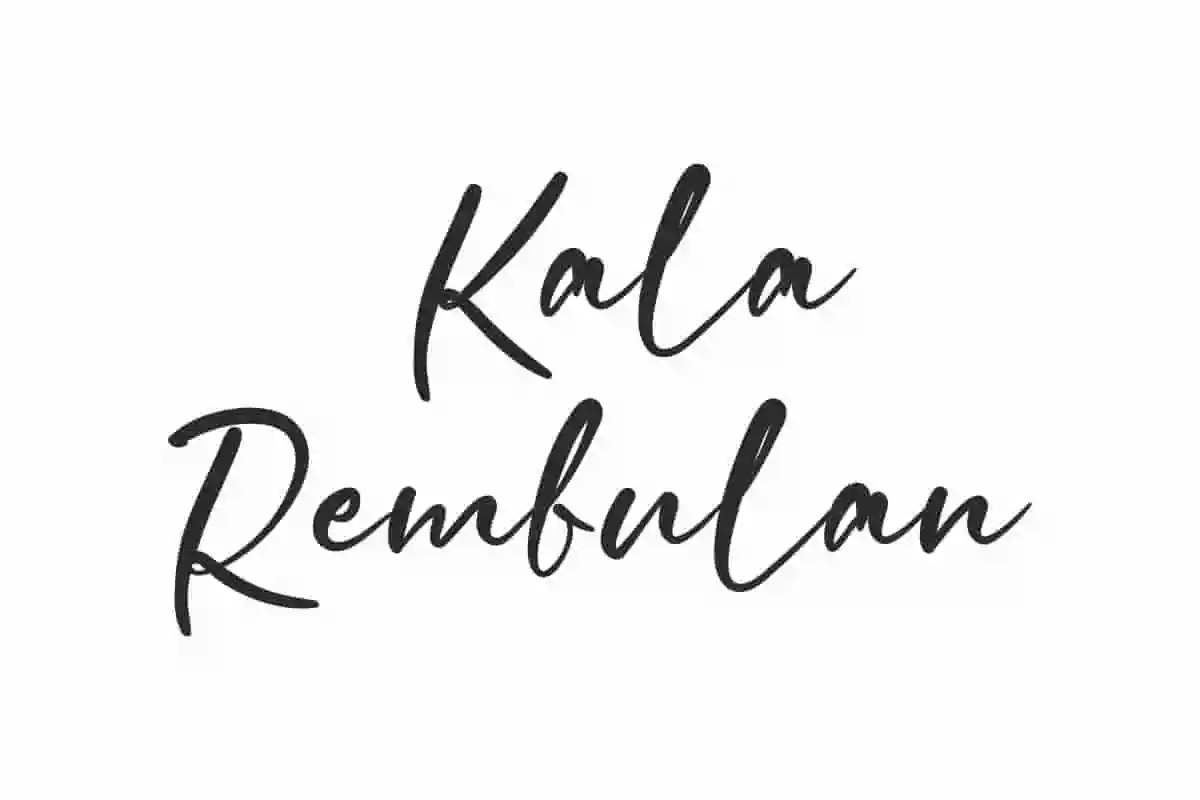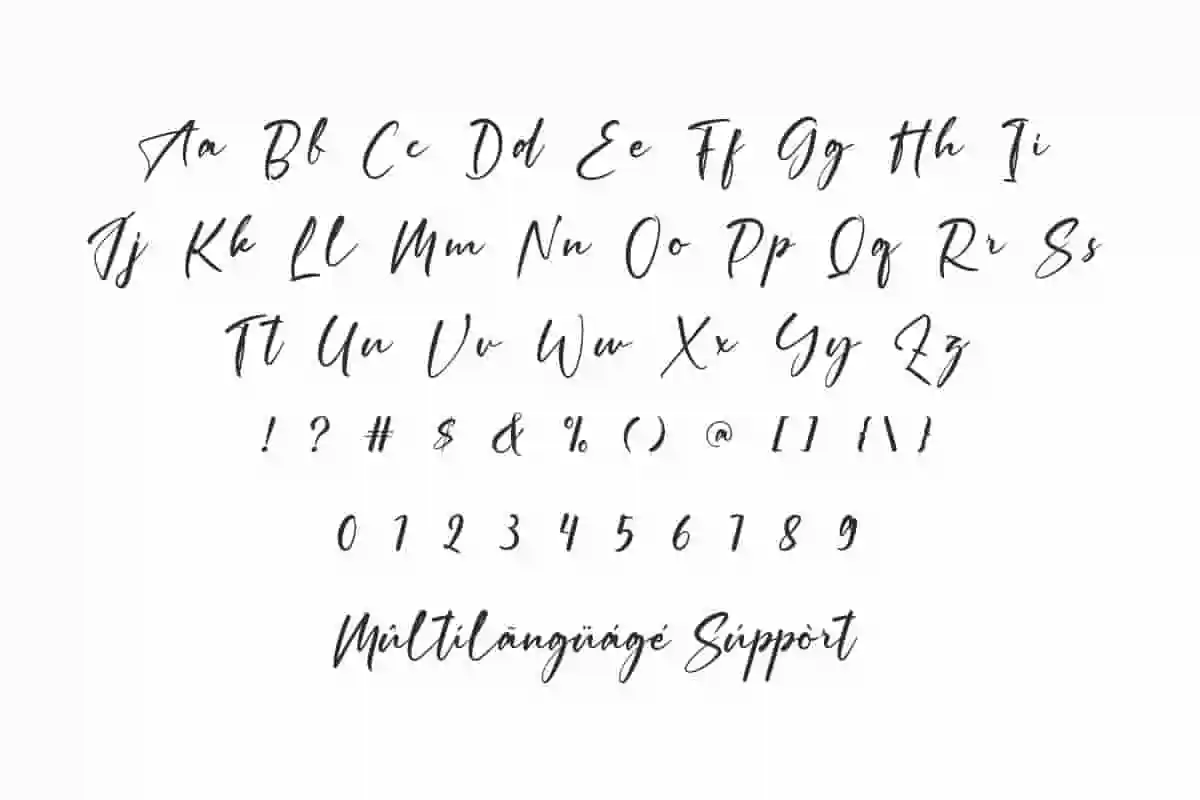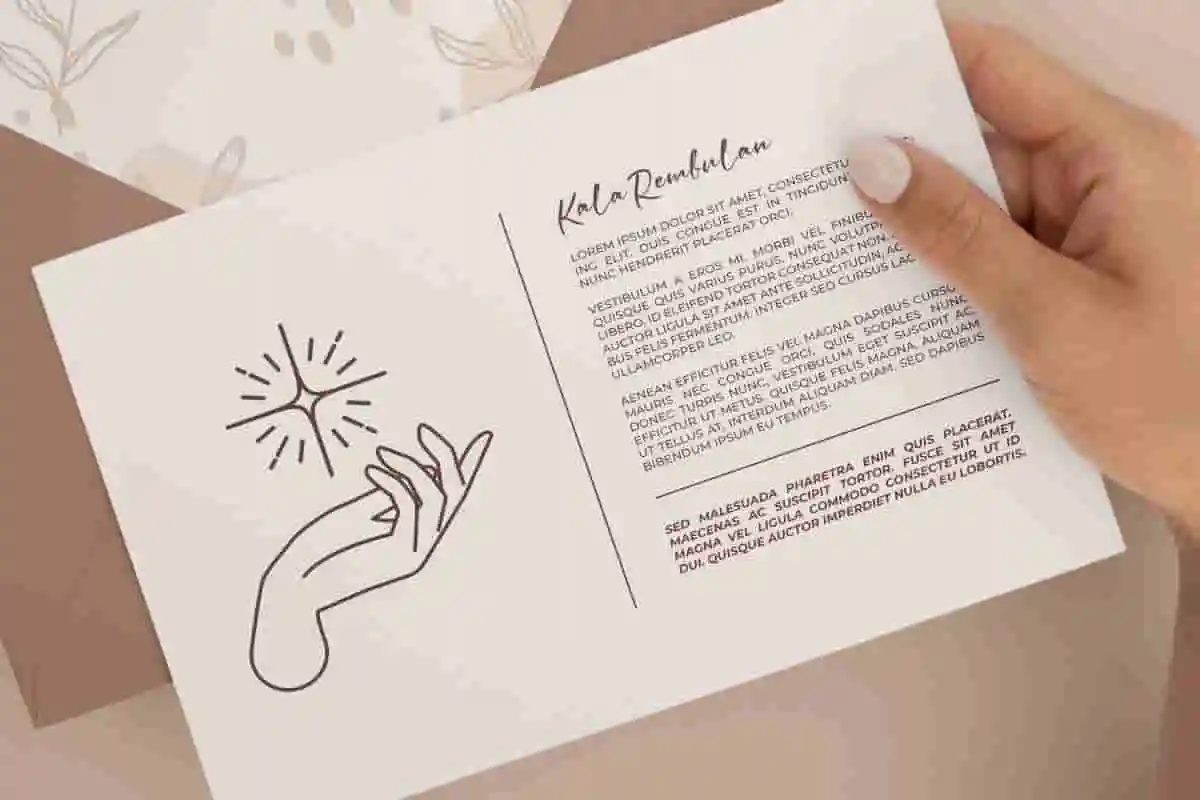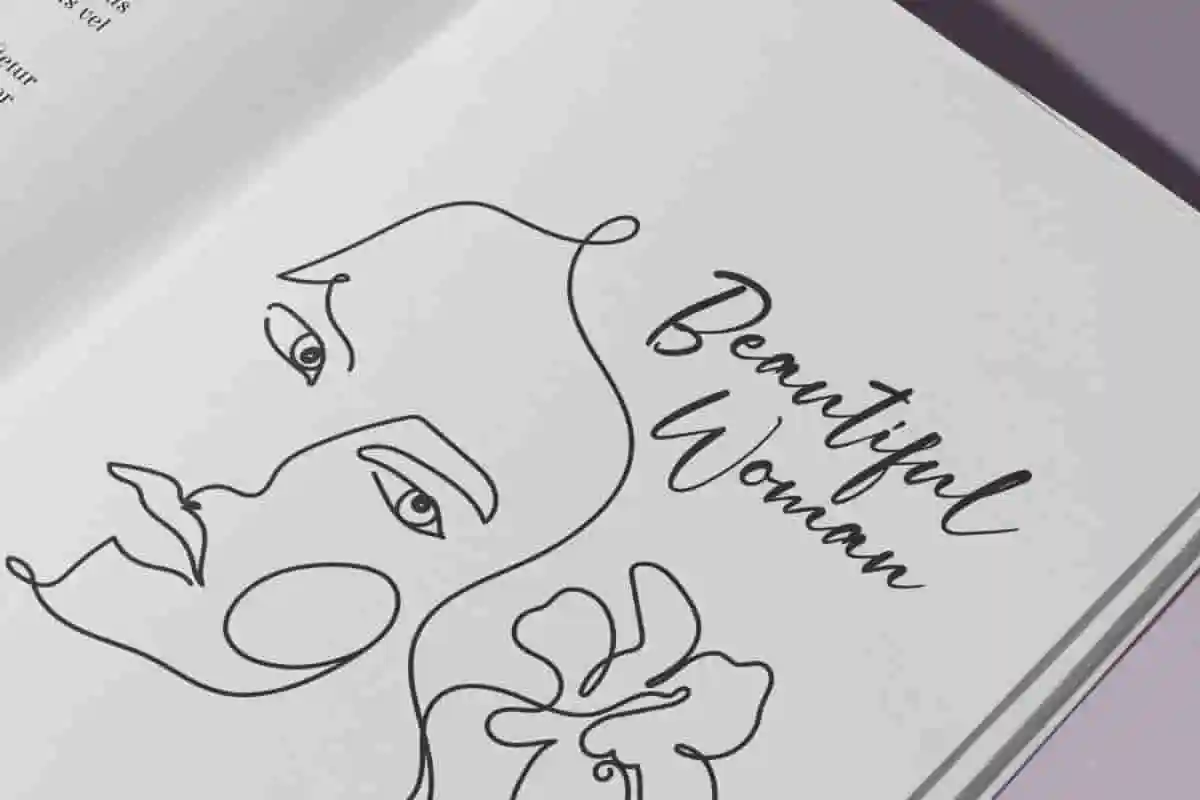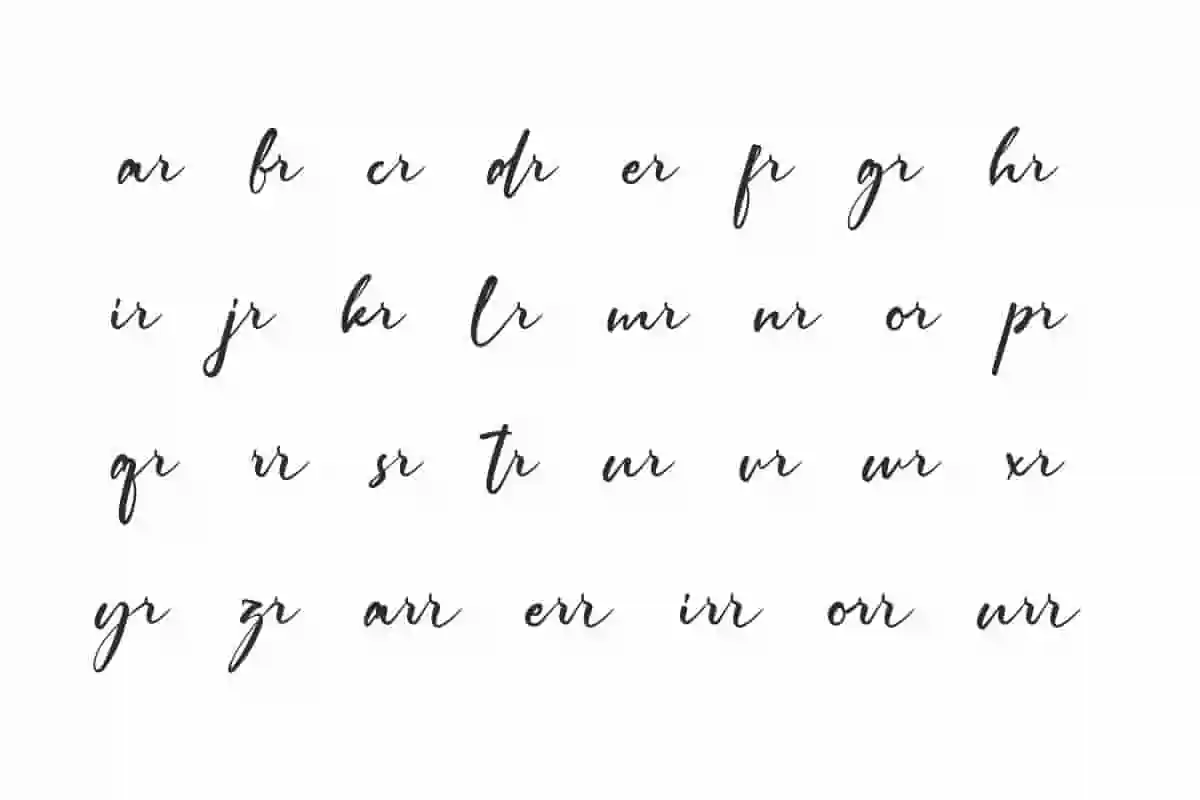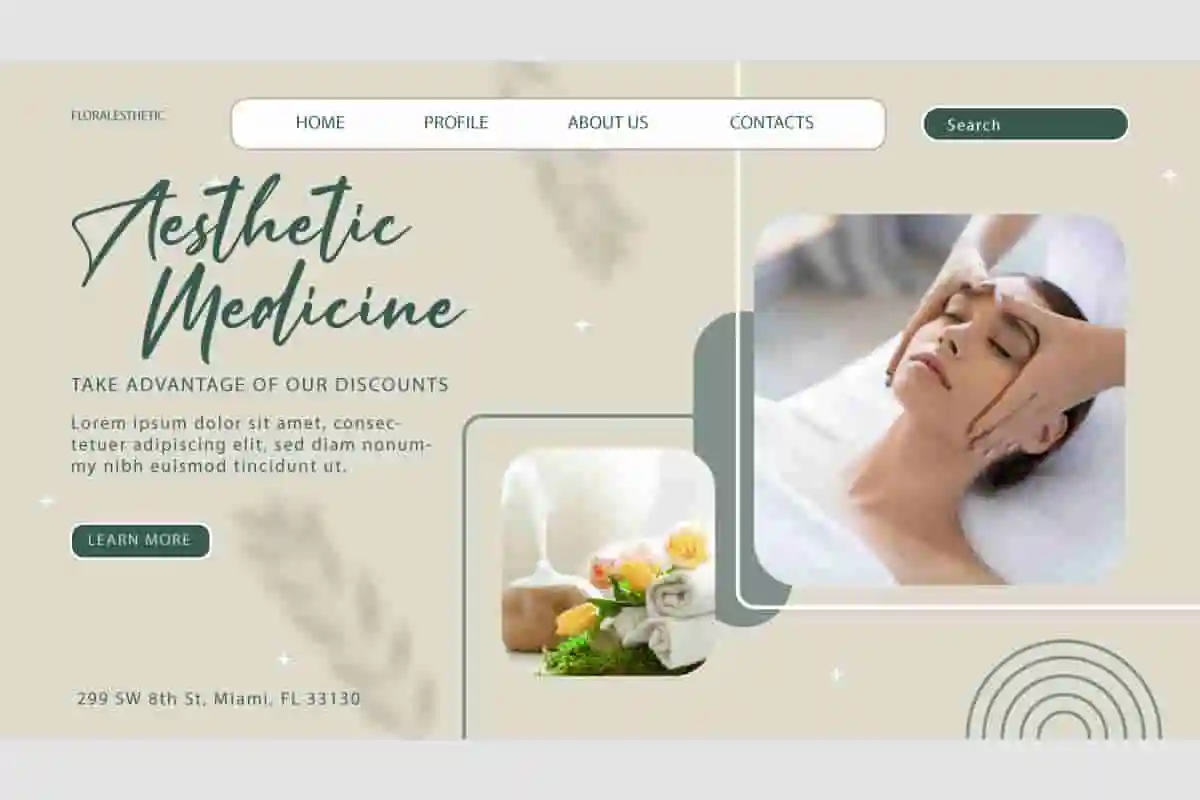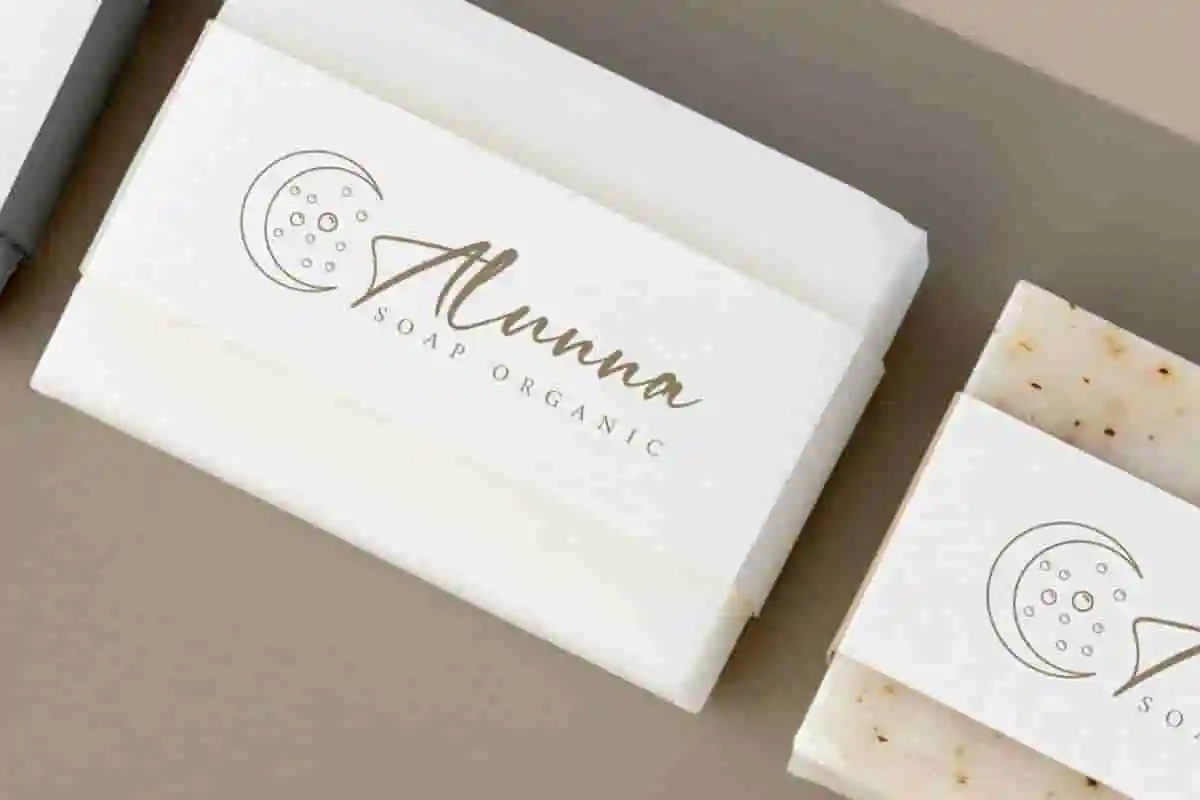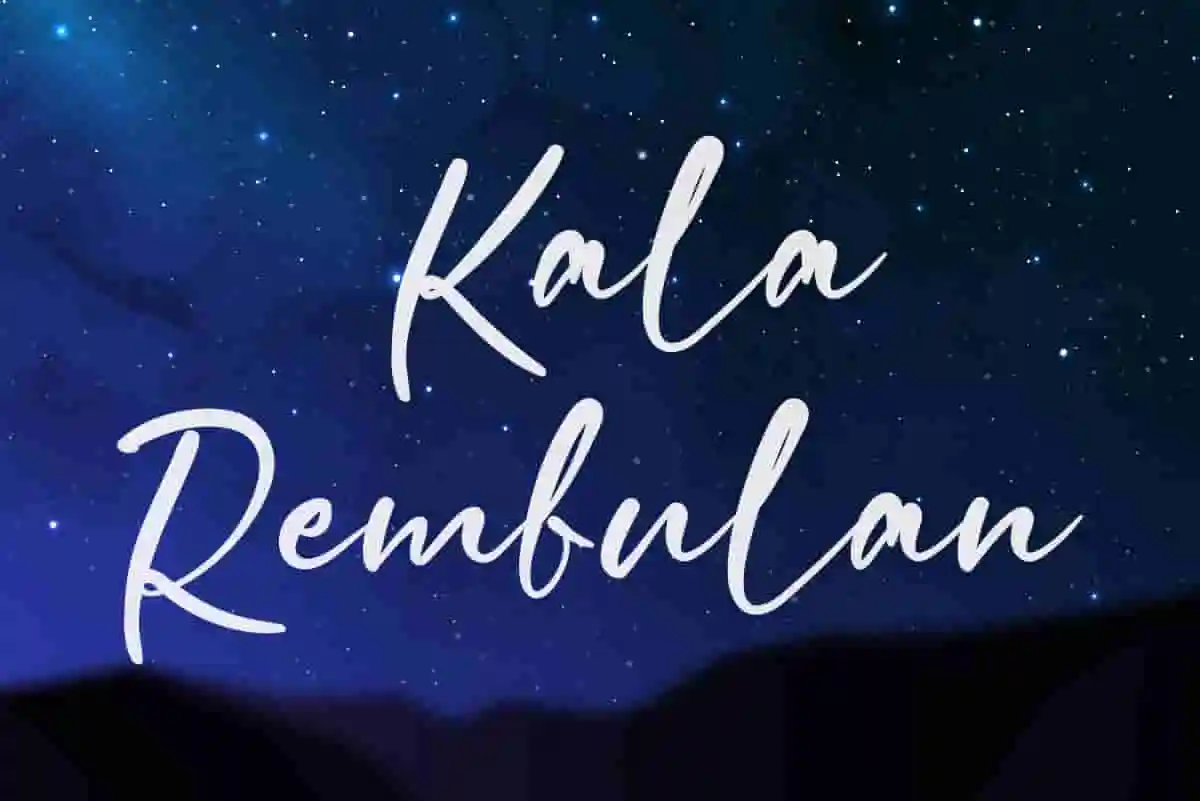
Kala Rembulan Font is an awesome display font with charm that will be versatile in whatever you create. Ready to radiate the beauty of the lunar in the night sky!
Kala Rembulan Font is an elegant handwriting display font with a beautiful moonlight theme, it can make your business feel awesome, such as accessories, architect, clothing brand, cosmetic, café, fashion designer, film, furniture, interior design, jewelry, photography, printing, publishing, real estate, restaurant, skincare, social media content, spa salon, wedding, writer, etc.
Kala Rembulan Font includes full set of Uppercase and Lowercase Basic Characters, Number, Punctuation, Symbol, and Ligature. It will be able to bring effects that feel astrology, lunar, magical or mystical feelings, natural rhythms to your various designs, such as apps, billboard, brand logo, brochure, business card, cover, envelope, flyer, header, invitation, label, packaging design, poster, quote, screen print, sticker, title, watermark, website, and many more.